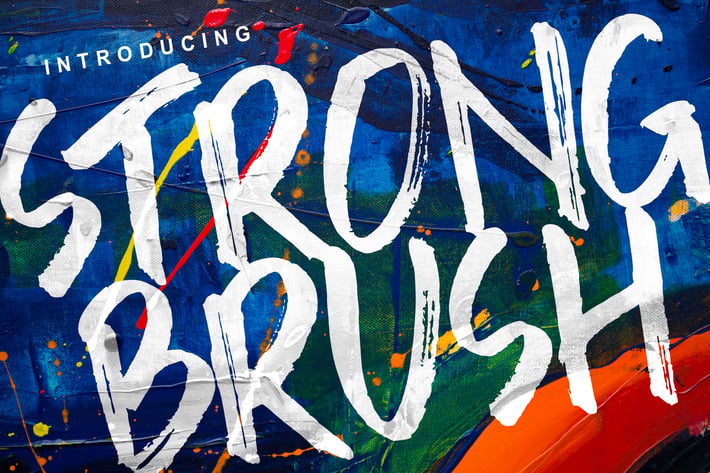
Strong Brush Font
Strong Brush is Natural Dry Brush Font.
This font is perfect for logo, quote, poster, playful lettering, for clothing, or any design projects.